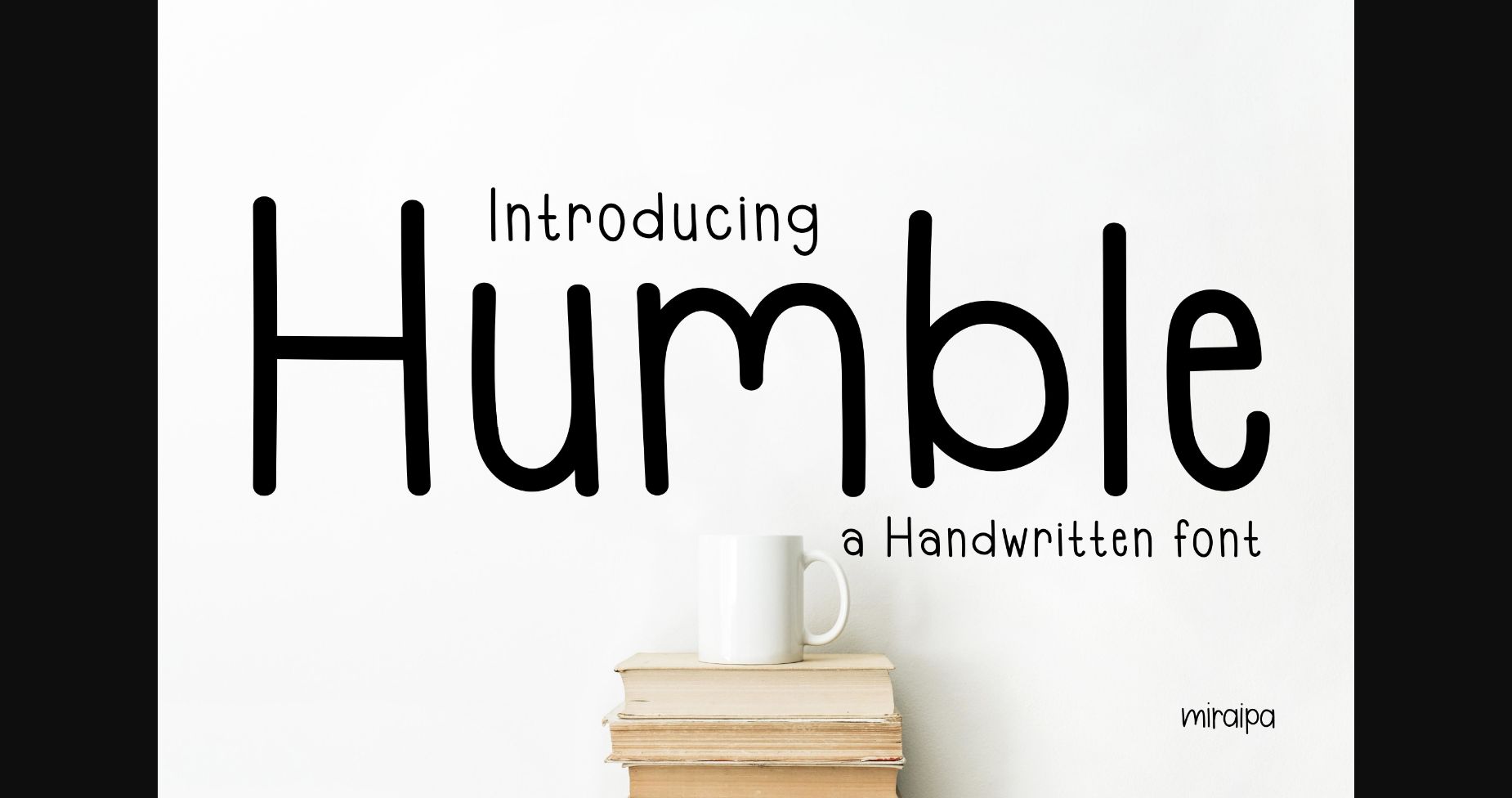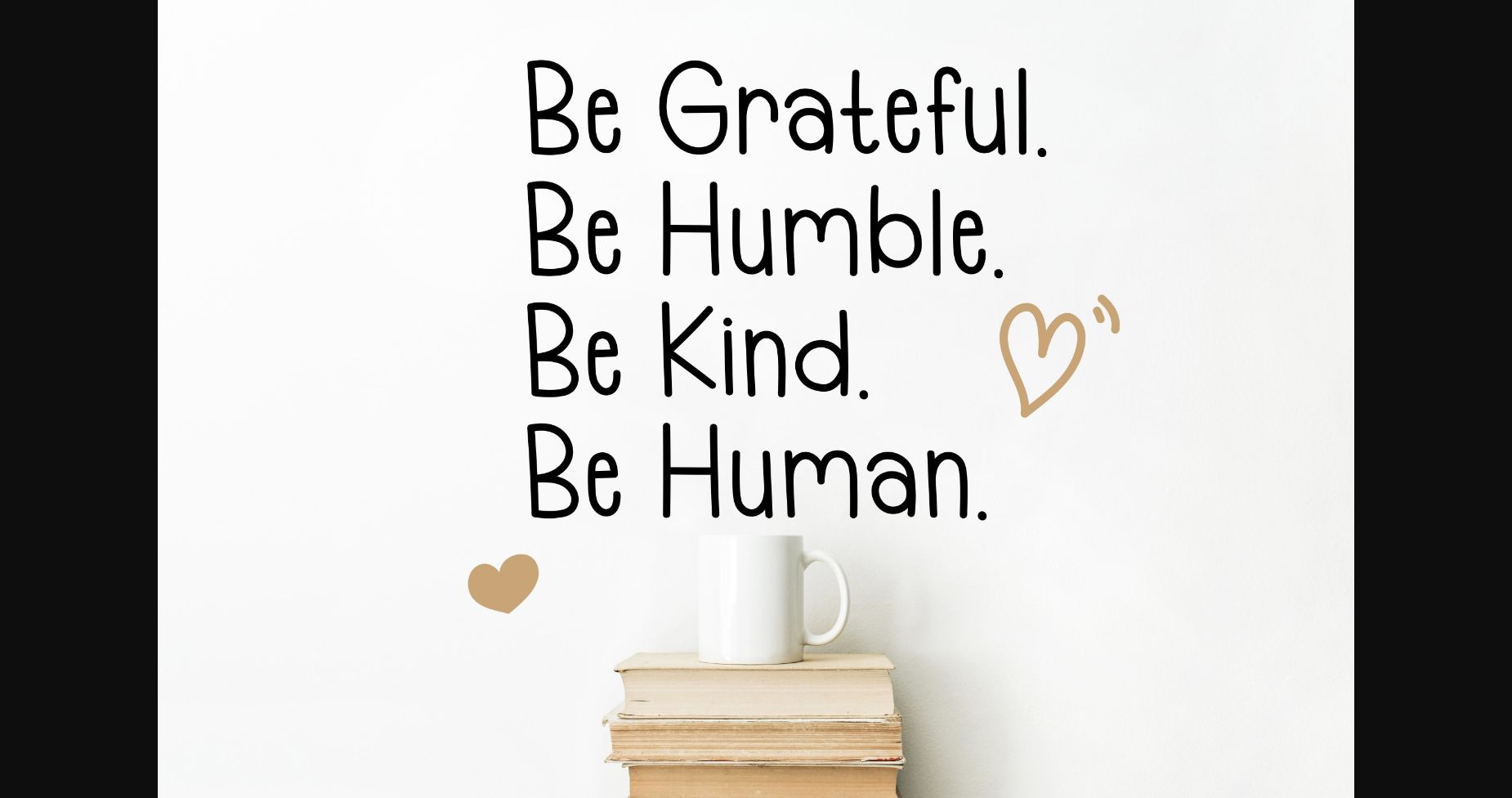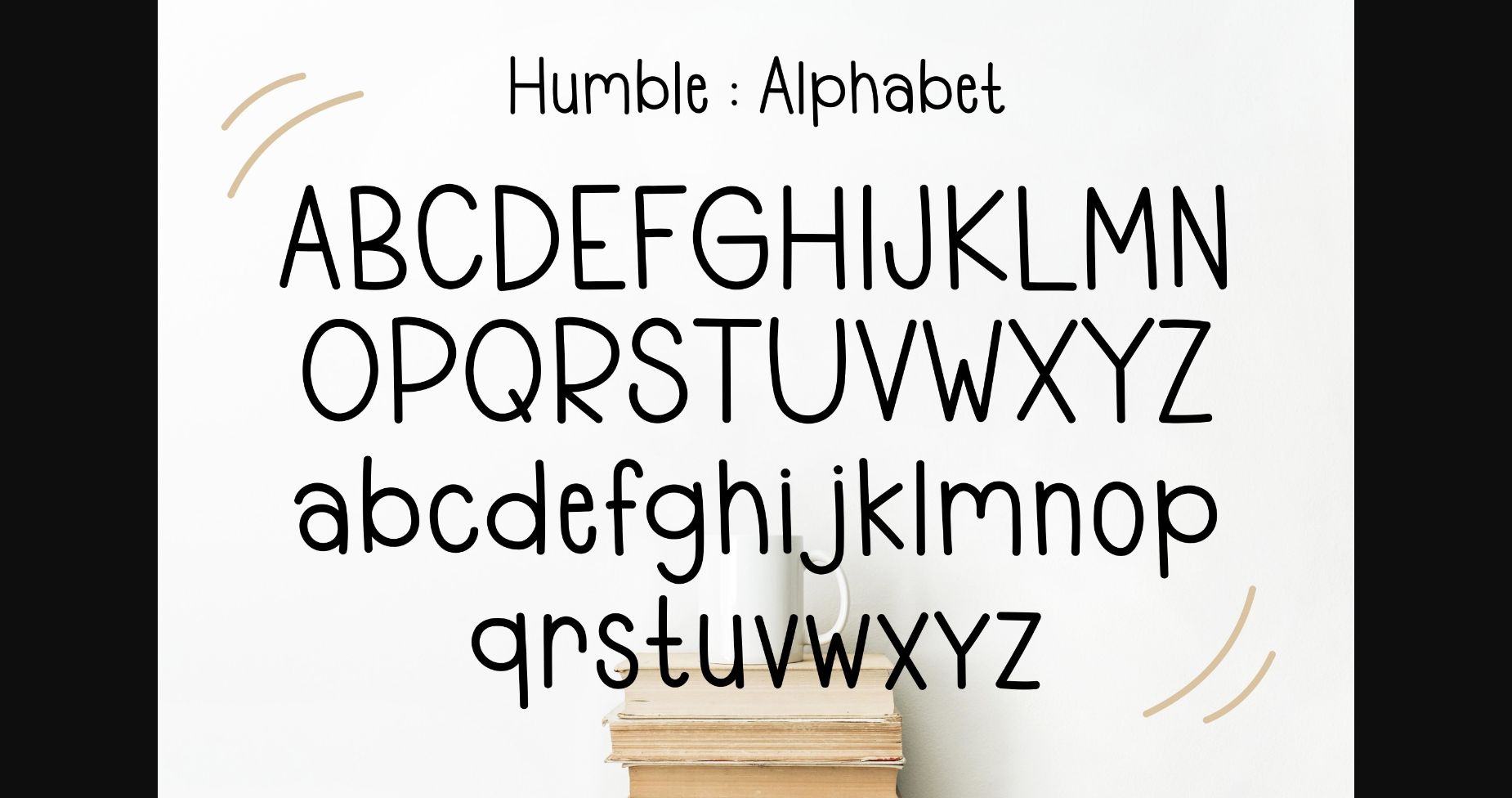
About Humble Font
Humble is designed in a friendly and lovely style. It would be awesome for your diary, planner, and journal, and also perfect for back-to-school projects, weddings, party decoration, invitations, festivals, posters, blogs, clothing, child-related designs, greeting cards, social media posts, or anything that needs a friendly touch. Add it now to your fonts library, and it will bring any of your DIY projects to life.